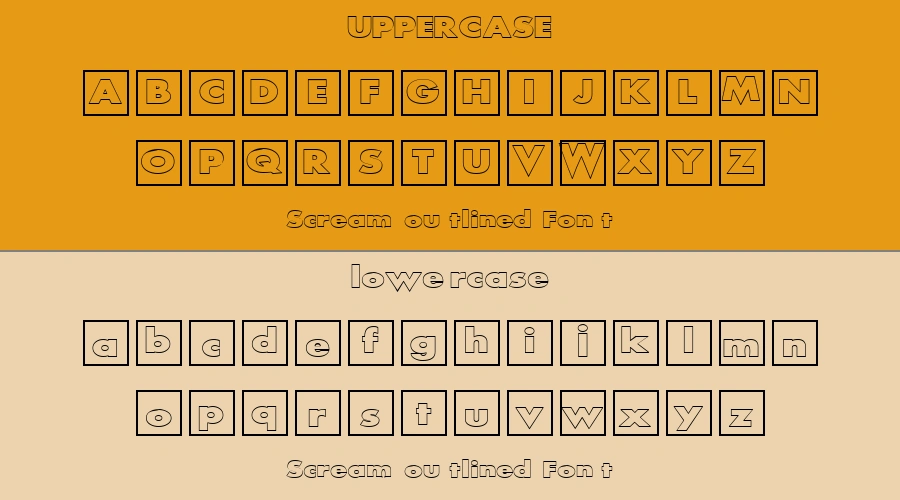
About Scream outlined Font
Scream outlined Font stands out for its distinctive combination of contextual forms and flexibility. Ideal for merchandise graphics, it provides the professionalism and aesthetic refinement that professional projects demand. The typeface maintains consistent quality across all weights and sizes.
Key features include refined circular bowls and practical ordinals, enhancing typographic expression. In featured quotes applications, Scream outlined Font demonstrates exceptional scanning accuracy. The terminal angle and academic heritage contribute to its distinctive character and professional appeal.